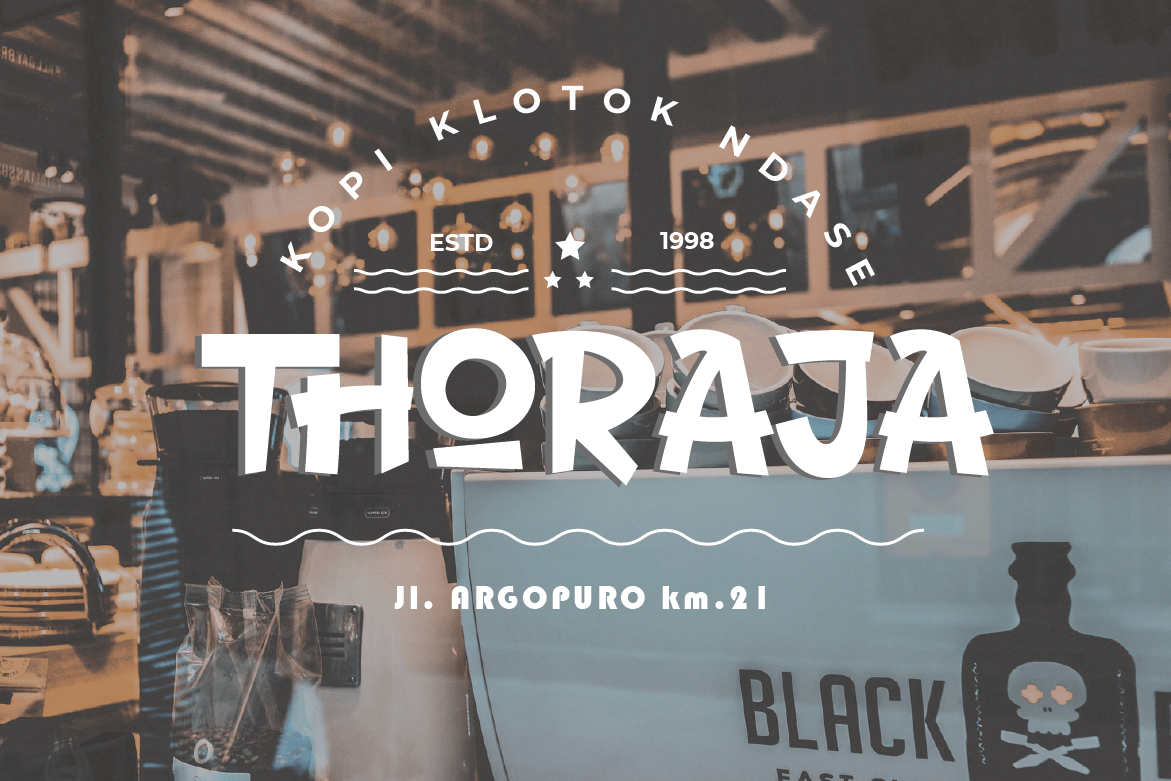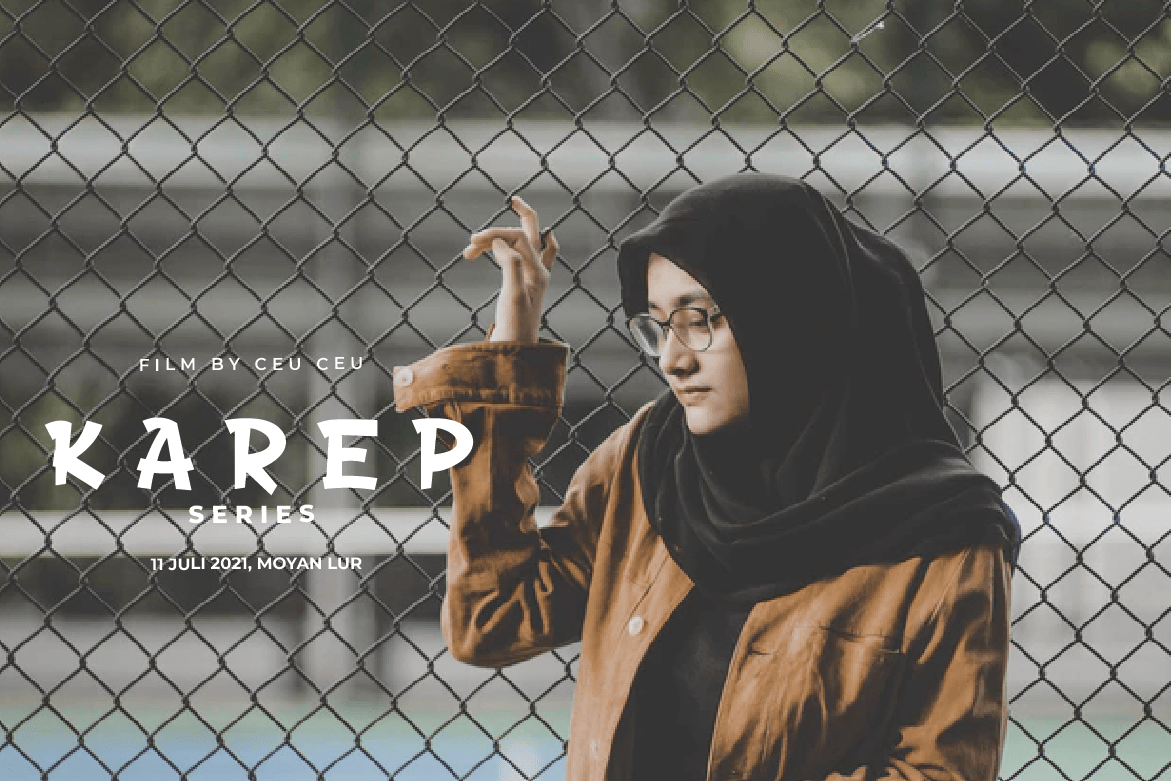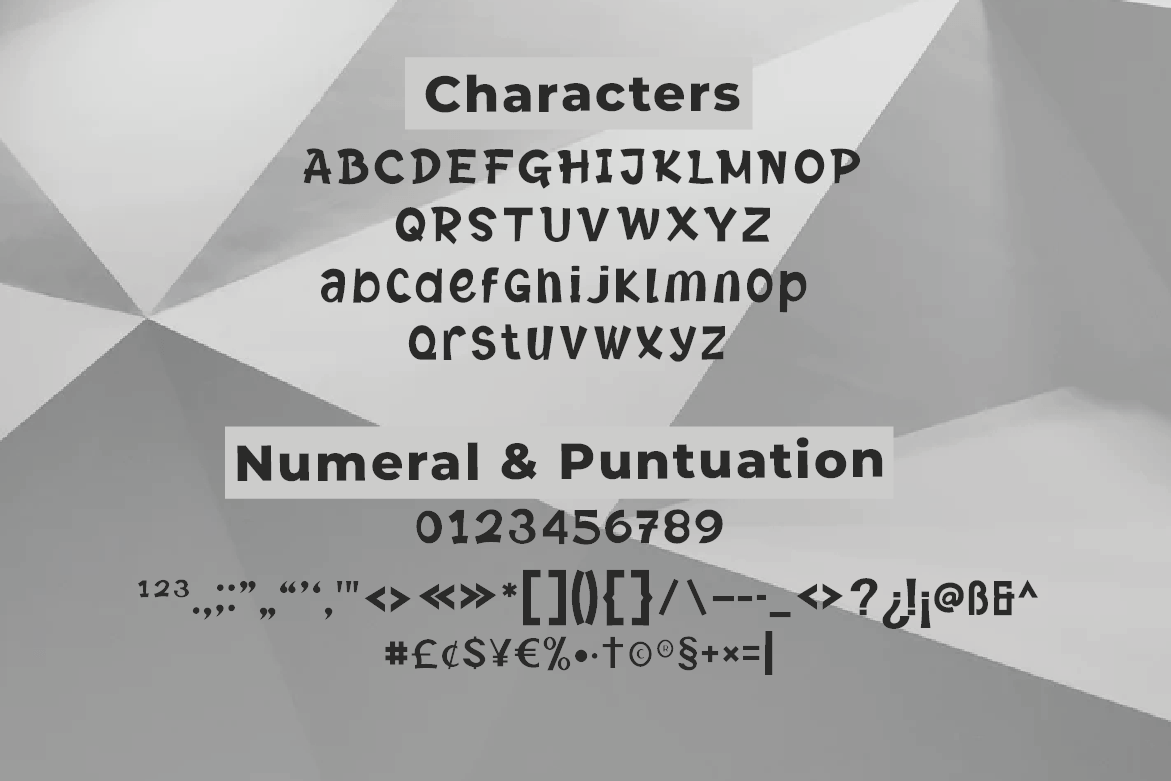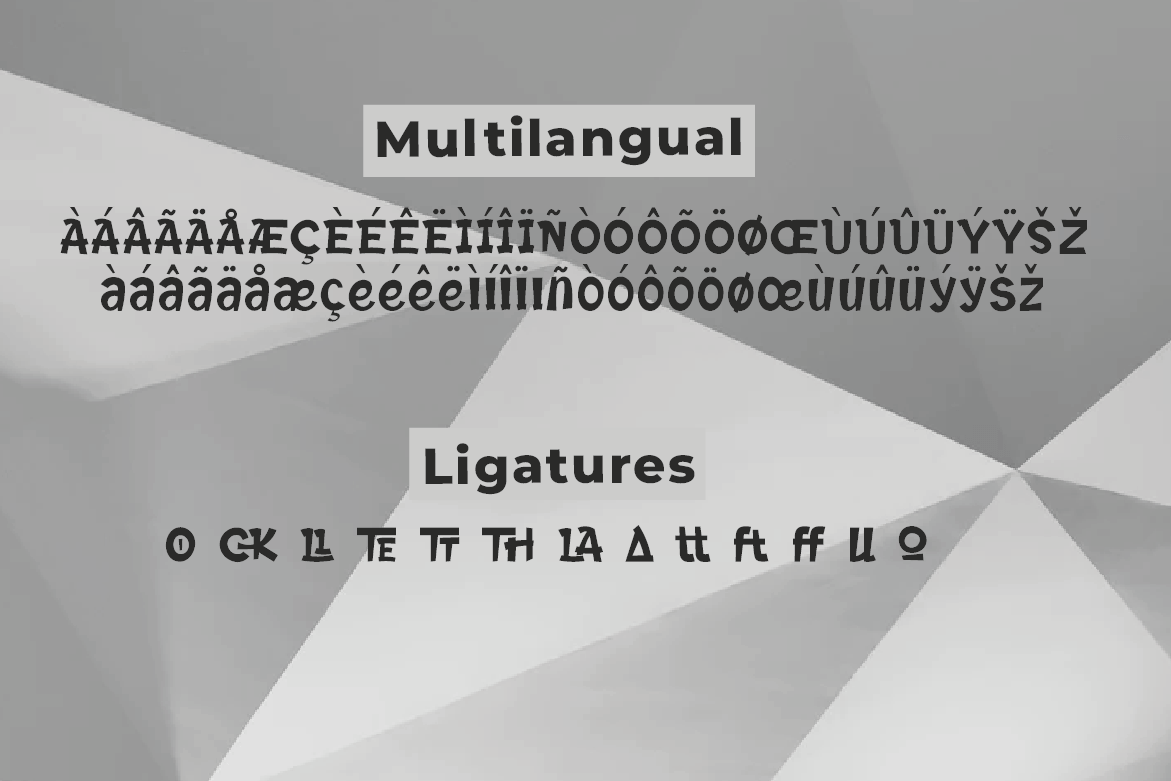
THORATE Font
THORATE Display Font
This is a cool and aesthetic display font. Whatever the topic, this font will be a great asset to your font library, as it has the potential to enhance any creation